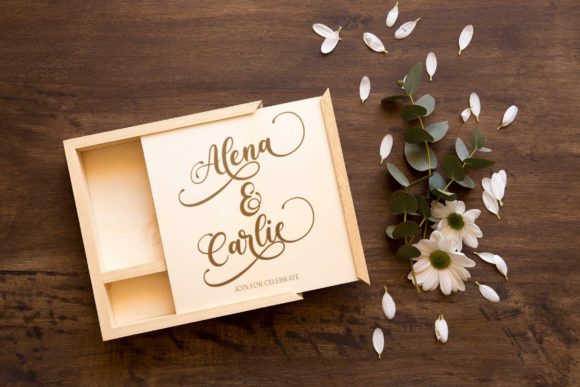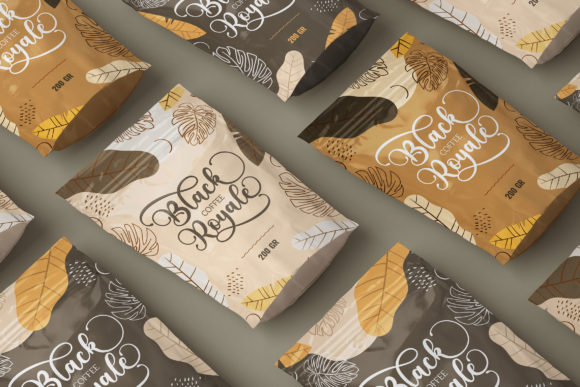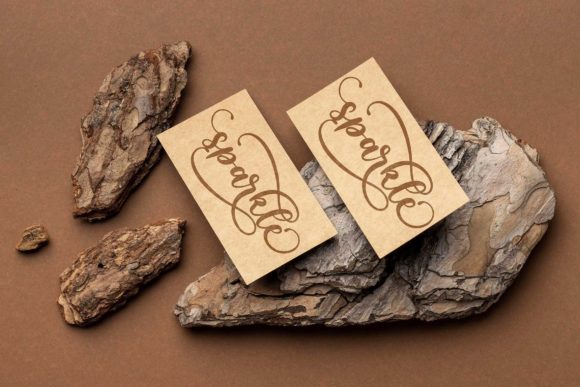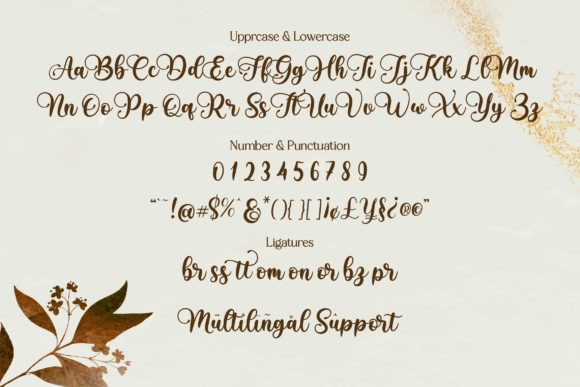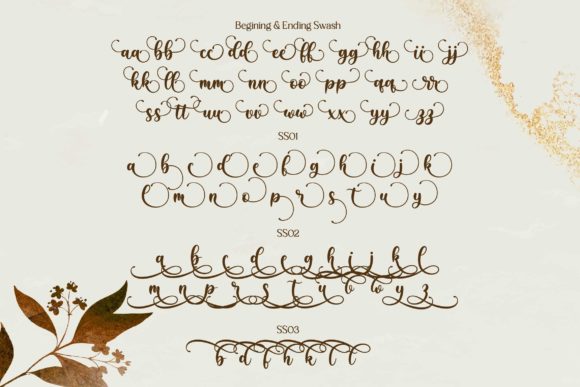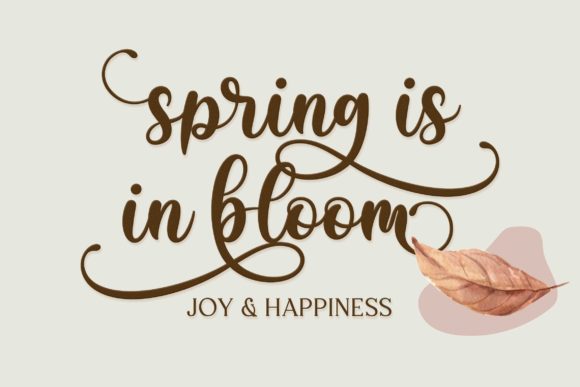
Unleashing the Magic of Handwritten Romance
Have you ever found yourself in a creative flow, scribbling down ideas in a notebook, and suddenly, the perfect font appears in your mind? For me, it’s always the moment when a beautiful script font brings a design to life. That’s exactly what happens when you add the Babylone Script Font to your project.
This romantic and sweet calligraphy typeface is designed to add a touch of luxury to any design. With characters that dance along the baseline, it’s the perfect choice for creating beautiful, handwritten-inspired designs. As a designer, you’ll love the PUA encoding that allows you to access all the amazing glyphs and ligatures with ease.
Whether you’re working on a wedding invitation, a blog post, or a social media graphic, the Babylone Script Font is sure to bring a touch of elegance and sophistication to your design. In this article, we’ll explore the features and benefits of this stunning font, and show you how to make the most of it in your next design project.
Babylone Script Font Key Features
- Unique Characteristics: Babylone Script Font features a beautiful, handwritten script with elegant connections between letters, making it perfect for creative projects that require a touch of sophistication and elegance.
- Language Support: Babylone Script Font supports a wide range of languages, including English, Spanish, French, German, Italian, and many more.
- Font Weight and Style: This font comes in a single weight, but with multiple styles, including Regular, Italic, Bold, and Bold Italic, offering designers flexibility and versatility in their designs.
Babylone Script Font Review
When it comes to elegant script fonts, Babylone Script Font is definitely worth considering. Here are some of its standout features: ✨
- Unique and artistic design: Babylone Script Font offers a distinctive, hand-drawn feel that can add a touch of sophistication to any design project.
- Highly customizable: The font comes with a wide range of OpenType features, allowing you to adjust its behavior and create complex, customized effects.
- Perfect for creative projects: Whether you’re designing a wedding invitation, a logo, or a piece of fine art, Babylone Script Font is sure to impress.
However, there are some limitations to keep in mind: ⚠️
- May not be suitable for body text: Due to its cursive nature, Babylone Script Font may not be the best choice for large blocks of text, as it can be difficult to read.
- Requires careful kerning: To ensure that the font looks its best, you’ll need to spend some time adjusting the spacing between characters.
- May not be compatible with all operating systems: Some users have reported issues with the font not displaying correctly on certain platforms.
Overall, I think Babylone Script Font is a great choice for designers who want to add a touch of elegance and sophistication to their projects. With a little practice and patience, you can create truly stunning designs with this unique and versatile font.
The Babylone Script Font is perfect for:
- Event posters and flyers
- Social media graphics and ads
- Typography projects and art